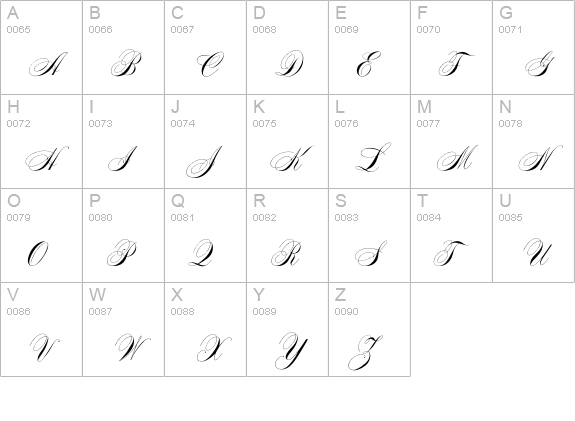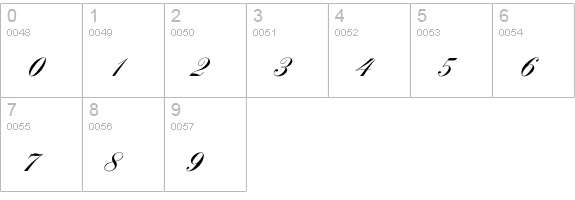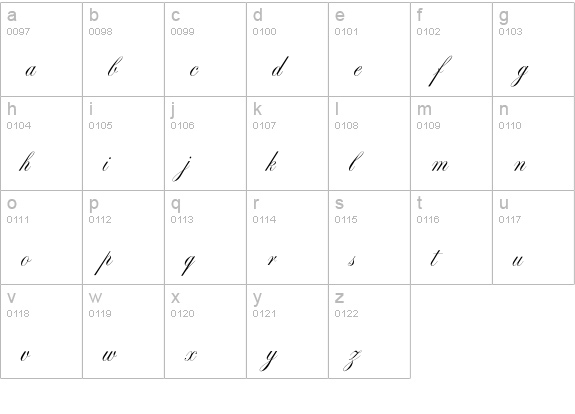
Caravelle Font Details
Caravelle font is a stunning display typeface that exudes elegance and sophistication. Its unique blend of classic and modern elements makes it perfect for a wide range of design projects, from branding to editorial layouts. The intricate details and graceful curves of Caravelle font will surely captivate your audience and leave a lasting impression. The best part? Caravelle font is available for free download at FontsMarket.com. This means you can easily access this exquisite typeface and use it in your projects without any cost. Don't miss out on the opportunity to enhance your designs with the timeless beauty of Caravelle font. Download it now and elevate your creative work to new heights.